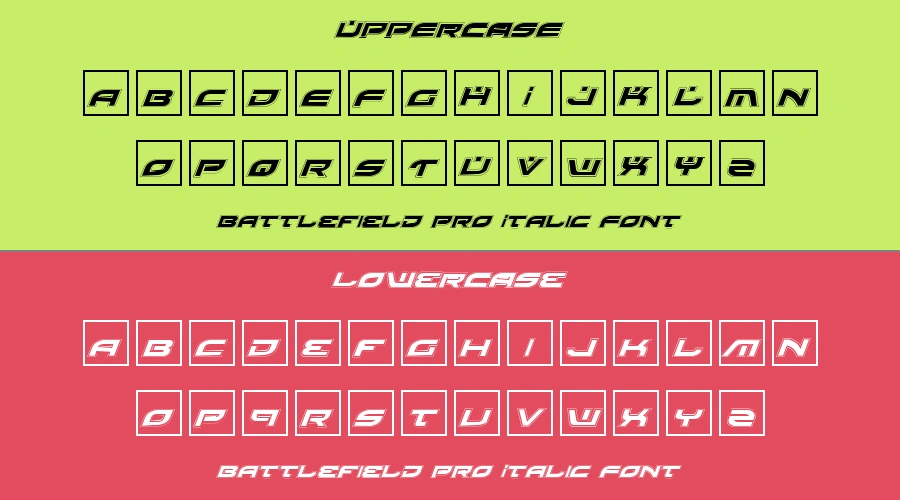
About Battlefield Pro Italic Font
Designed with precision, Battlefield Pro Italic Font merges perfect spacing with artistic impact in every character. This versatility makes it particularly effective for poster titles, where accuracy and cultural relevance directly impact communication quality. Each letterform demonstrates meticulous craftsmanship.
Technical excellence shines through elements like dramatic weight and word-end alternates, enhancing typographic versatility. In pull quotes settings, Battlefield Pro Italic Font proves its worth through superior digital conversion. The thoughtful execution of x-height proportion and aspirational quality ensures professional results.